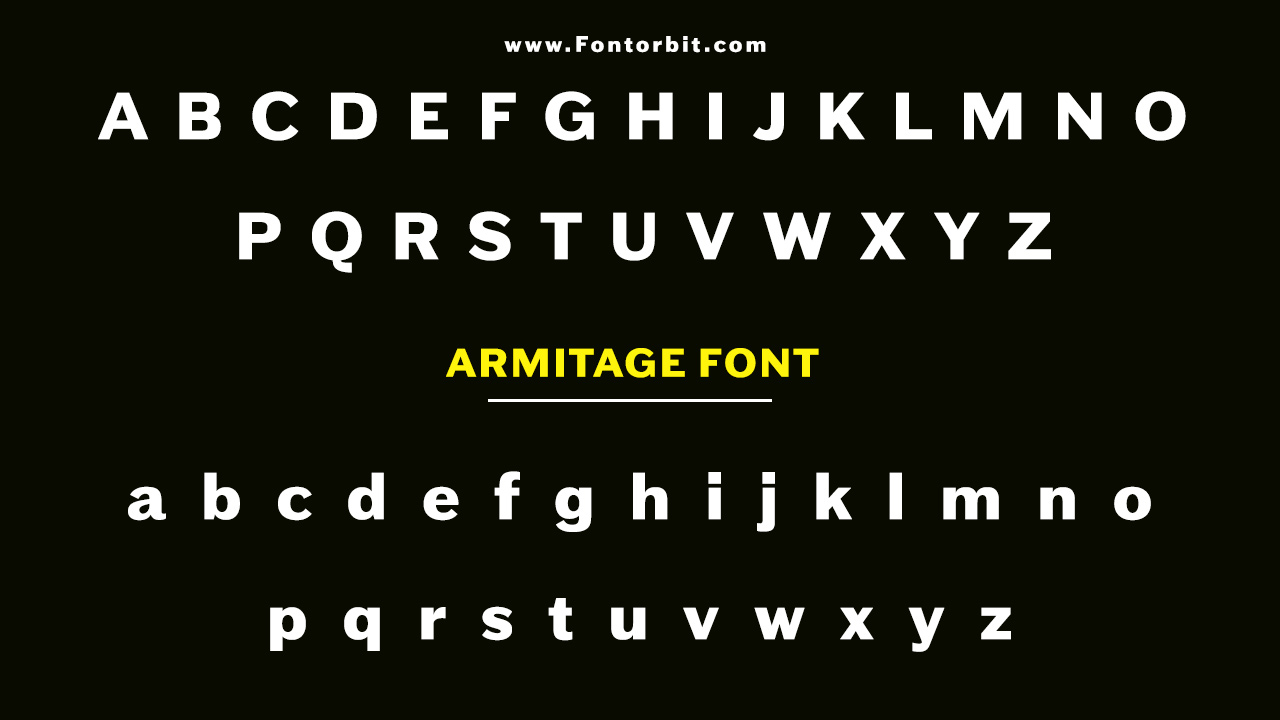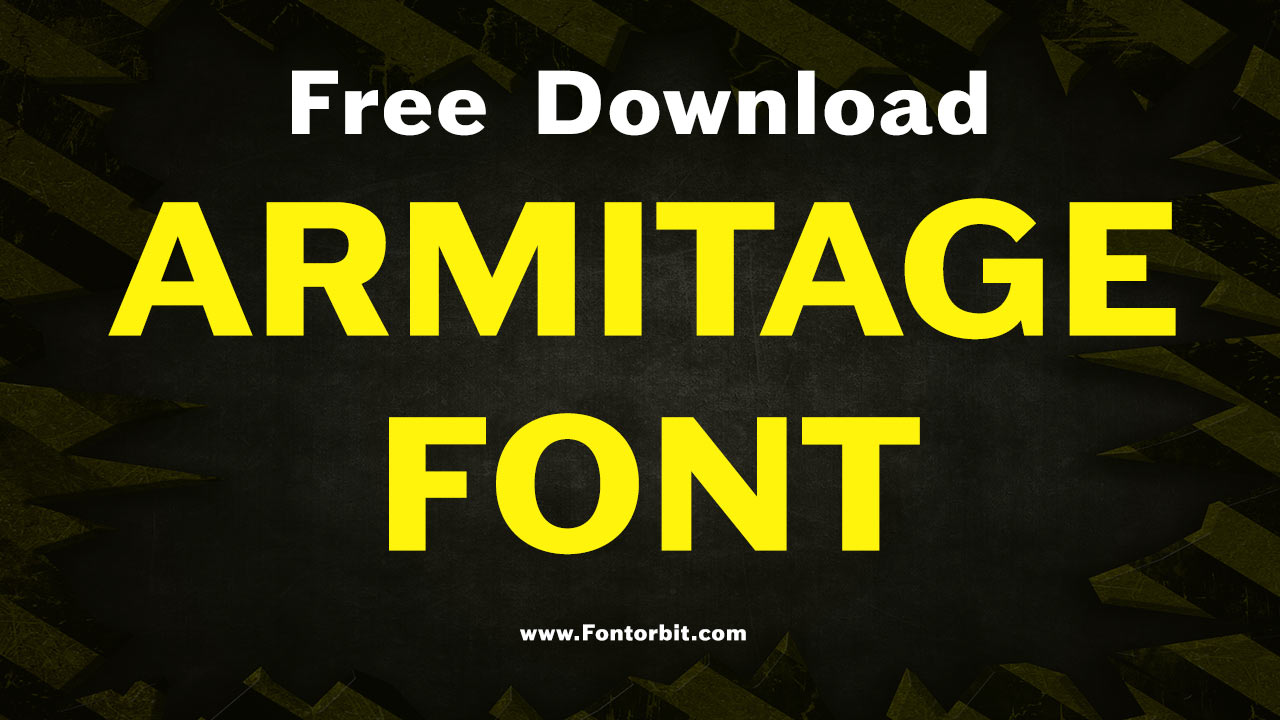
Armitage Font is a robust and versatile typeface designed by Dunwich Type Founders Published in 2015, this font belongs to the sans-serif family and combines a classic and contemporary feel, making it suitable for various design purposes. Its slightly rounded edges and subtle humanist touches give it a unique appeal.
The Armitage font works well in modern, professional, and creative settings. Its clean design and variety of weights allow for flexible use in various applications.
- Magazines
- Books
- Advertisements
- Labels
- Makeup packaging
- Wedding invitations
- Greeting cards
- logos
- Fashion stationery
The Armitage font stands out as a modern sans-serif with subtle humanist influences, making it suitable for both formal and creative projects. With its broad range of weights and clean design, it’s perfect for anyone looking for versatility in their typography.
3.Is Armitage Suitable For Print Design?
Yes, it works well for magazines, newspapers, and posters.
4.Can I Use Armitage In Logo Design?
Yes, its clean lines make it a strong choice for logos.
5.Does Armitage Come With Multiple Weights?
Yes, it offers various weights including Light, Regular, Medium, Bold, and ExtraBold.
6.What Makes Armitage Unique?
It’s a combination of clean sans-serif structure with humanist touches.